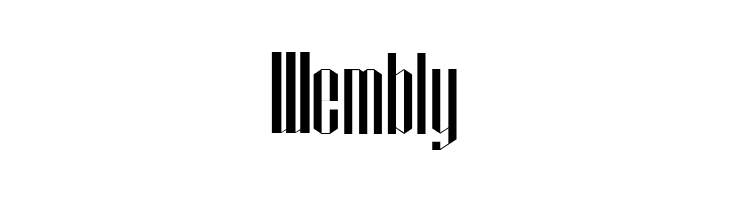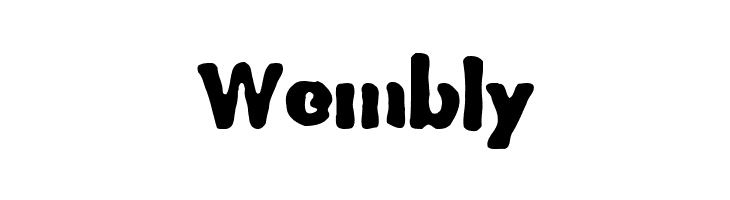
Utility BoldCondensed Font
Font by Patrick Broderick
A bold, condensed font with a modern and impactful style.
Zombie Font
A bold, jagged font with a horror-themed, decorative style.
Salaryman Font
Font by Patrick Broderick
A sleek, modern font with geometric lines and a monospaced appearance.
Castaway Font
Font by Patrick Broderick
A rugged, hand-drawn font with a bone-like appearance, perfect for adventurous themes.
Creature Font
Font by Patrick Broderick
A bold, distressed font with a horror-themed, eerie aesthetic.
Moto Font
A modern, geometric font with rounded edges and uniform width.
Papercut Font
Font by Patrick Broderick
A bold, angular font with high contrast and a modern geometric style.
Conundrum Font
A bold, playful font with a hand-drawn, dynamic style.
ZombieA Font
A bold, jagged font with a horror-inspired, distressed look.
DS Zombie Cyr Font
Font by Patrick Broderick
A bold, jagged font with a horror-inspired, torn appearance.
Damaged Goods Font
Font by Patrick Broderick
A bold, angular decorative font with a geometric style.
Potrzebie Font
Font by Patrick Broderick
A bold, angular serif font with a vintage yet modern twist.
Jinky Font
Font by Patrick Broderick
A playful, quirky handwritten font with irregular strokes and a casual style.
Bootleg Font
Font by Patrick Broderick
A bold, playful font with rounded, irregular strokes and a handcrafted feel.
Horror Hotel Font
Font by Patrick Broderick
A spooky, elongated font with a dripping, horror-inspired design.
Whiffy Font
Font by Patrick Broderick
A bold, gothic-style font with sharp, angular edges and a distressed look.
CreatureA Font
A spooky, jagged font with an eerie, horror-themed style.
JinkyA Font
Font by or from www.graffitifonts.net
A playful, informal handwritten font with a whimsical style.
Crunky Font
A bold, textured font with a dynamic, hand-crafted appearance.
Conundrum FG Font